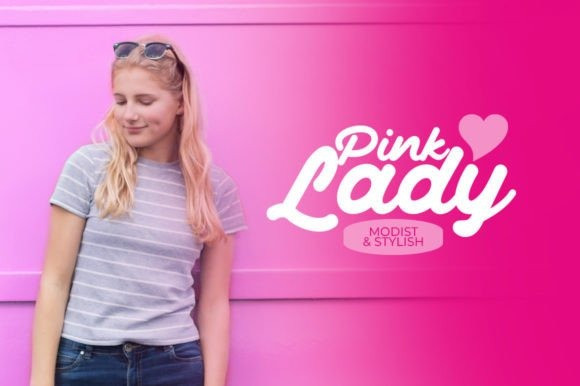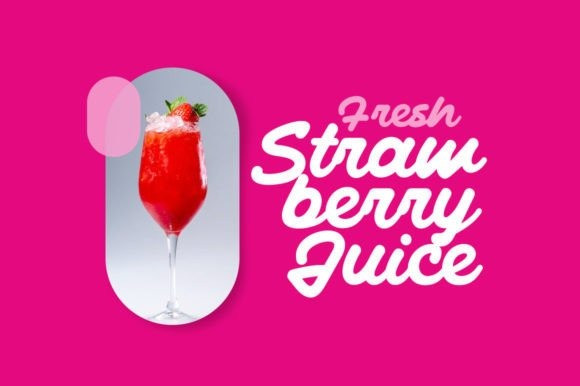
Yulio Font
Yulio Script Font is a fun bold script font perfect for posters, logos, magazines, book covers, banners, and many more! Get this amazing typeface, and use it to create lovely designs!